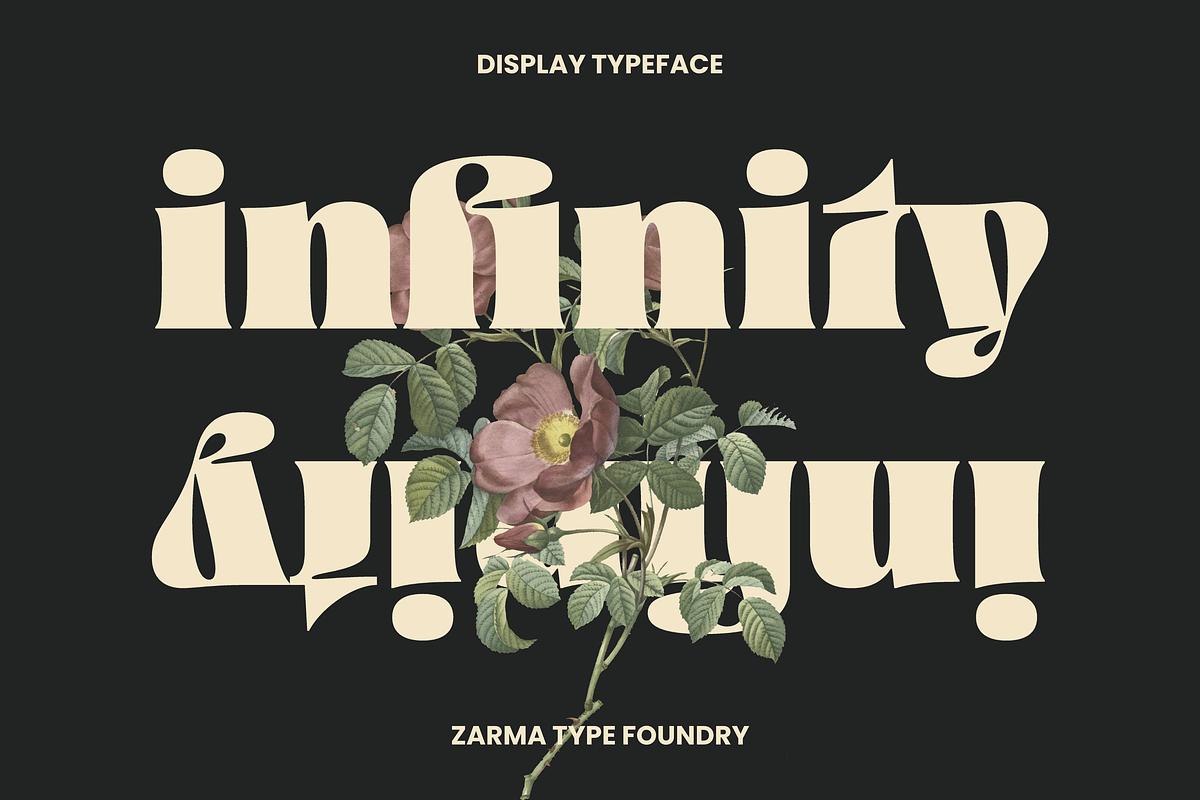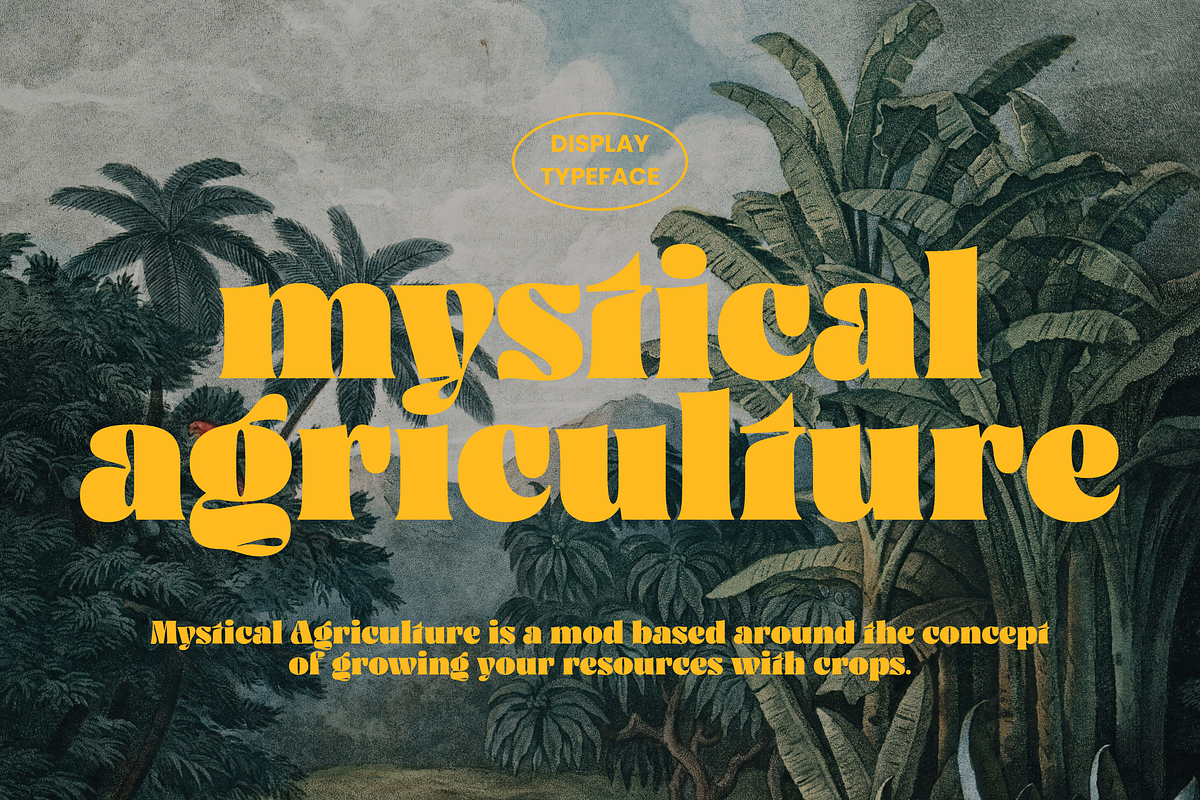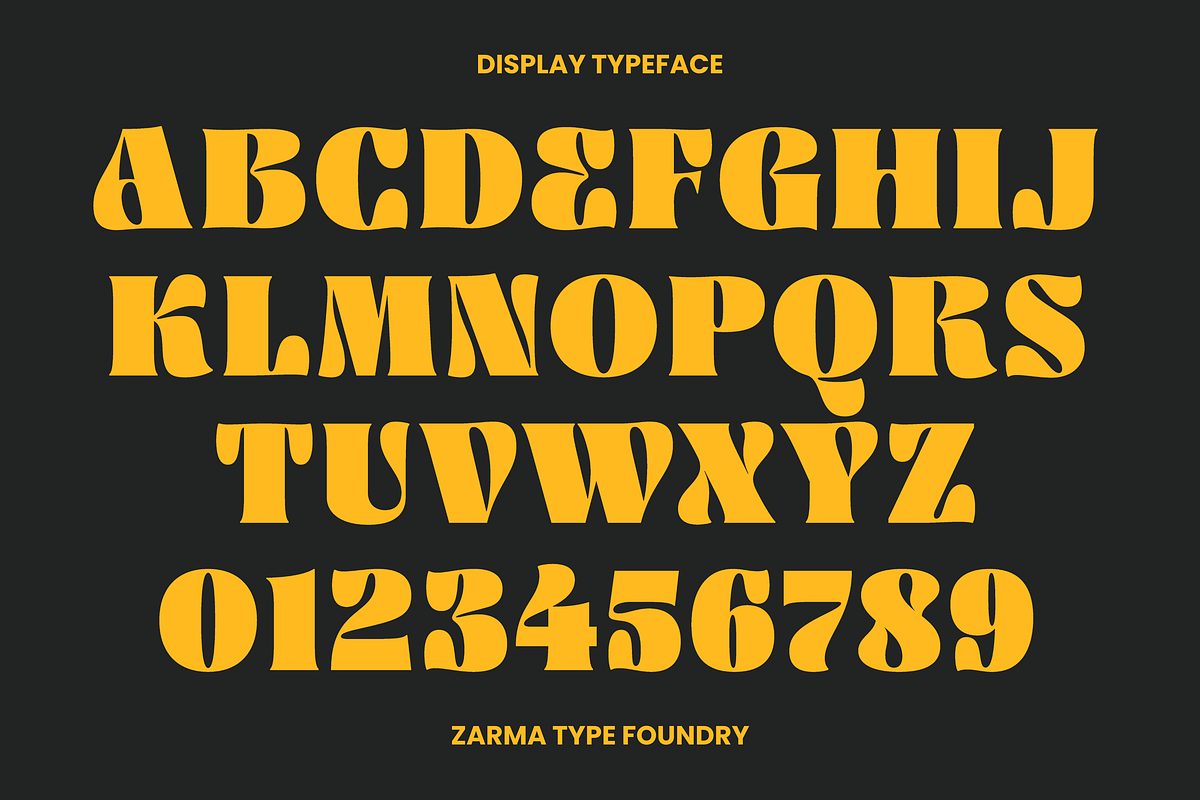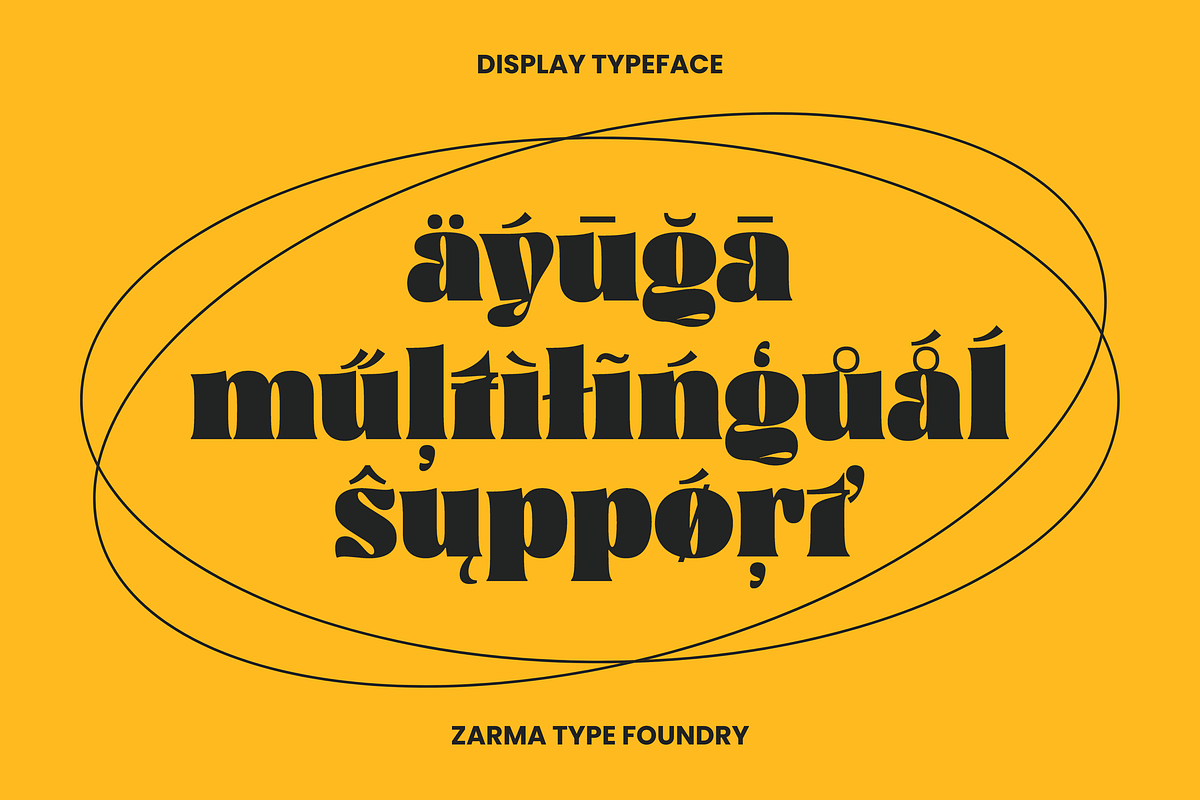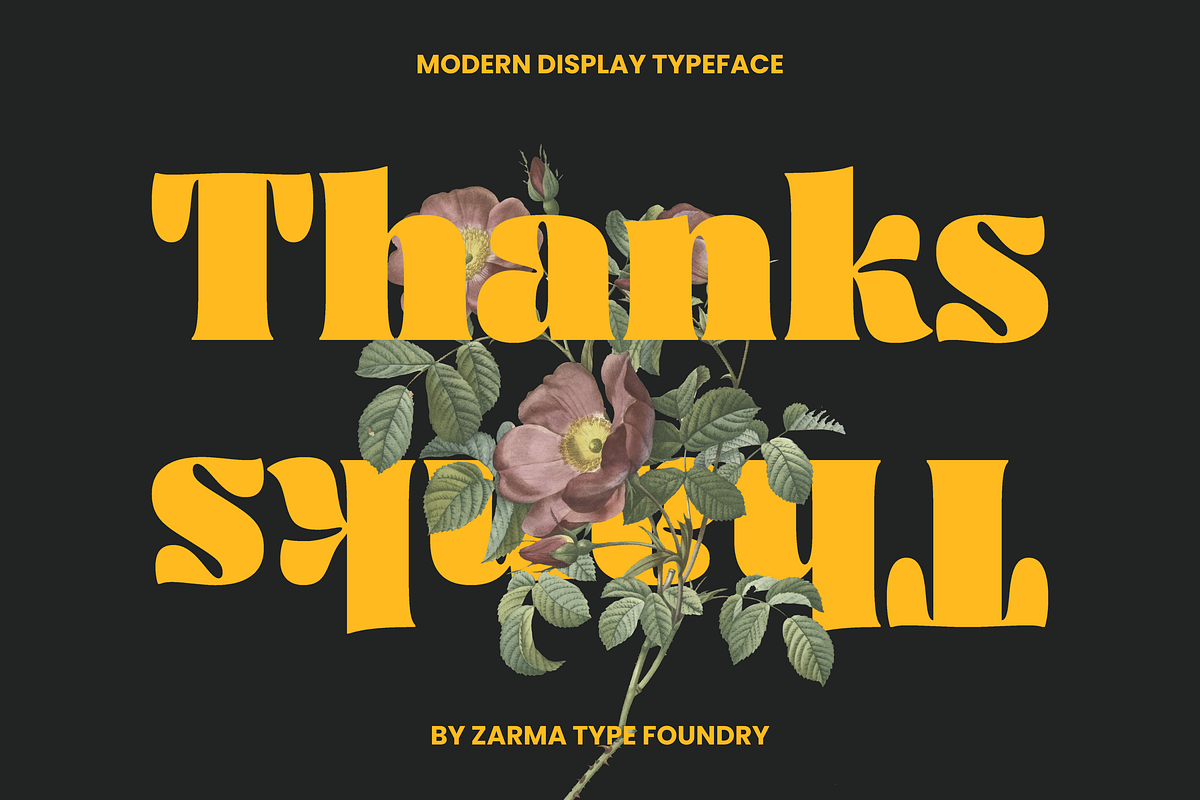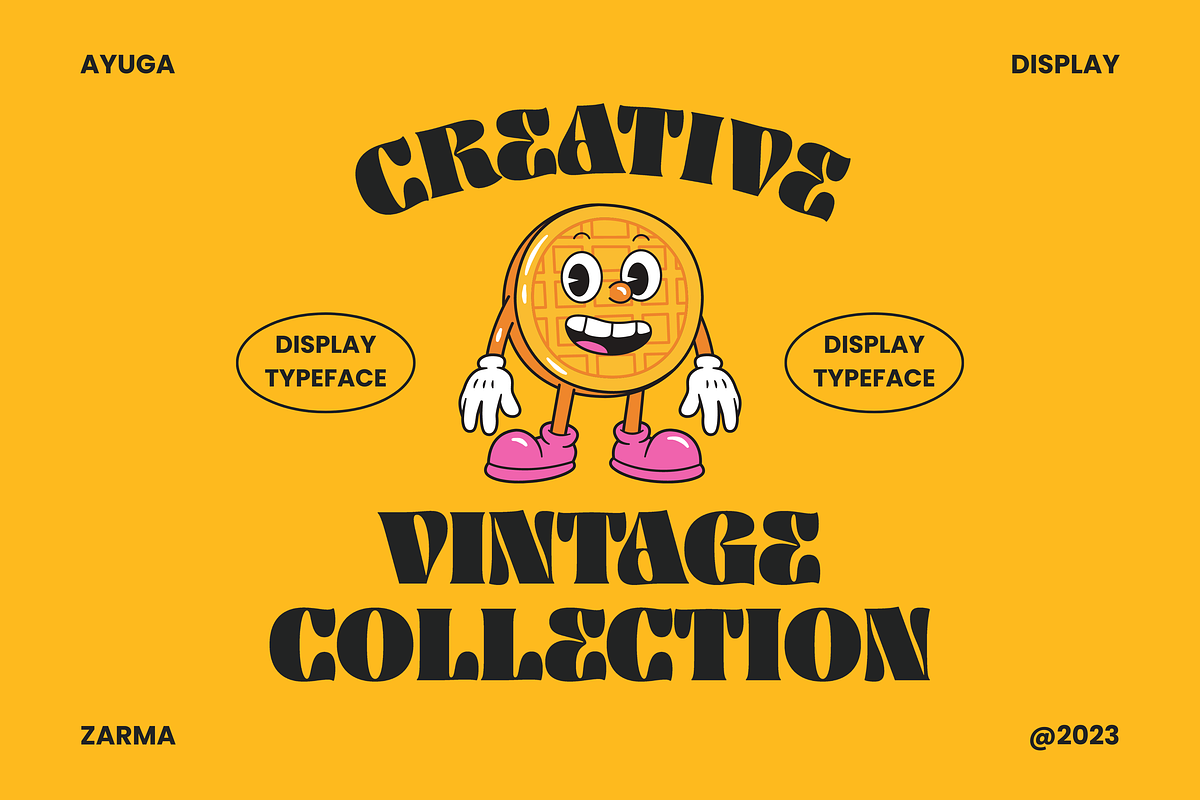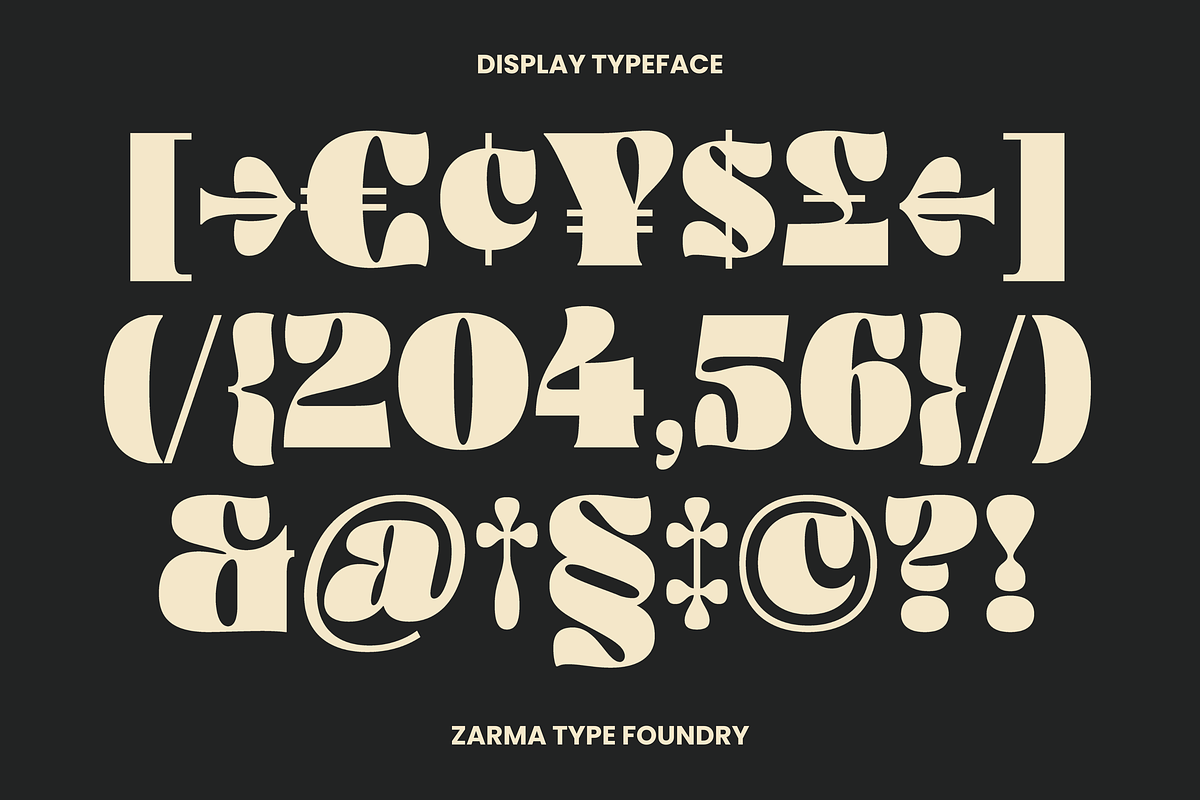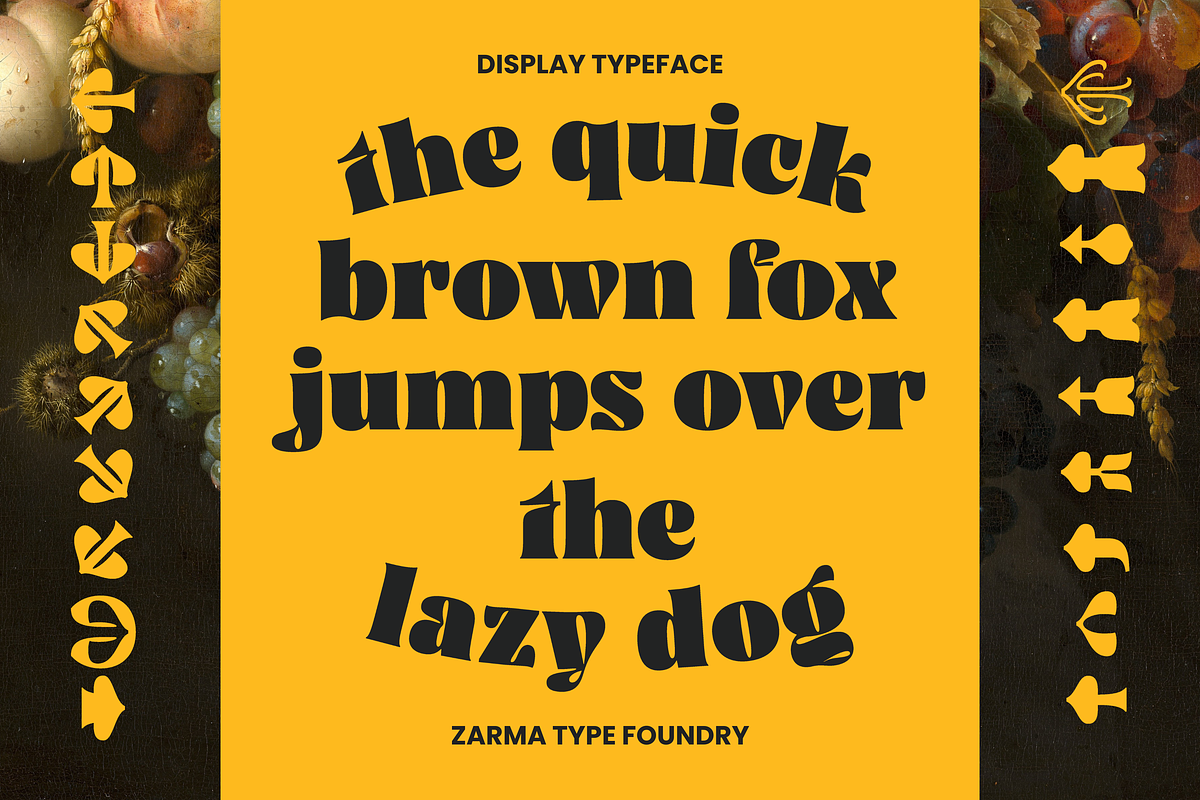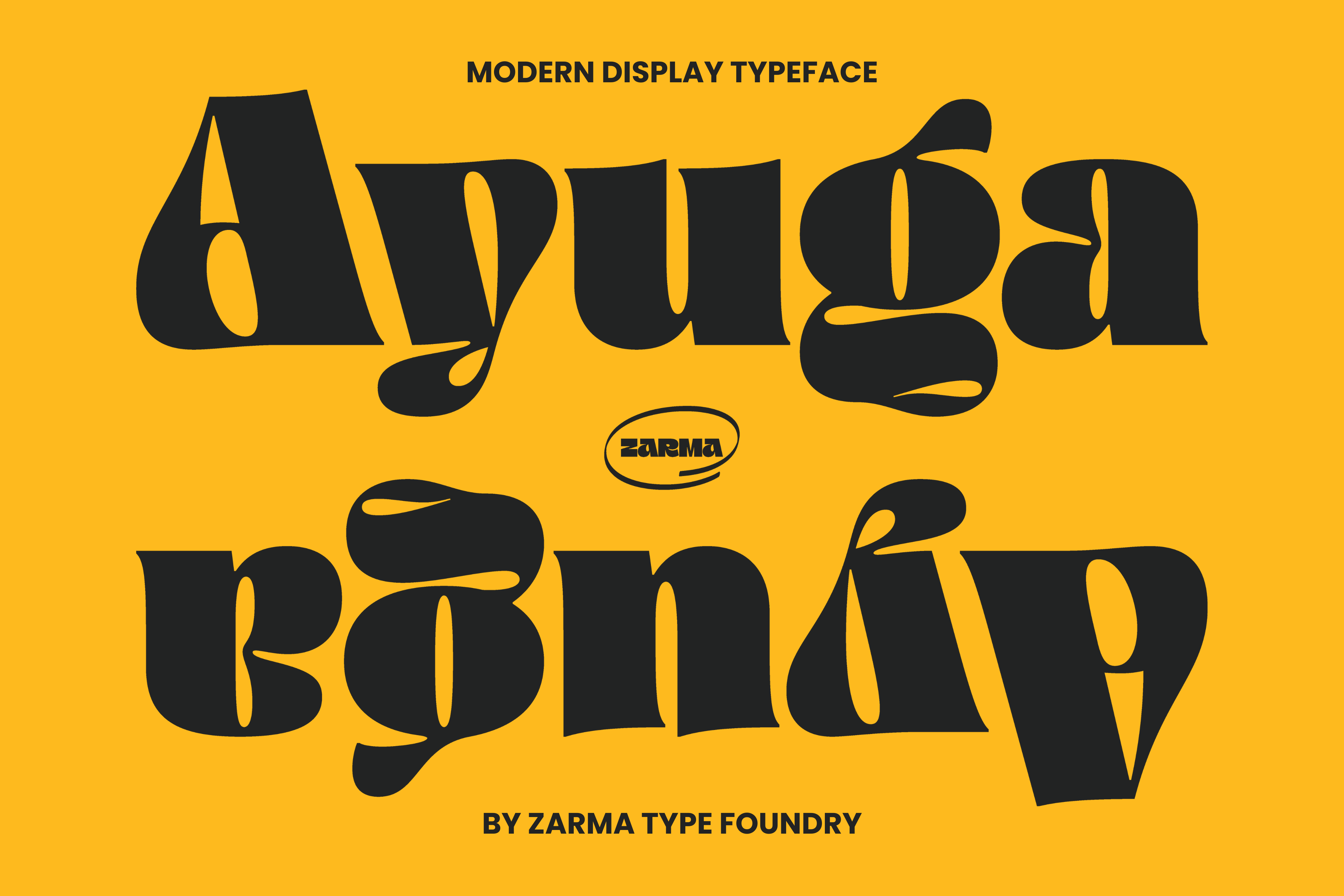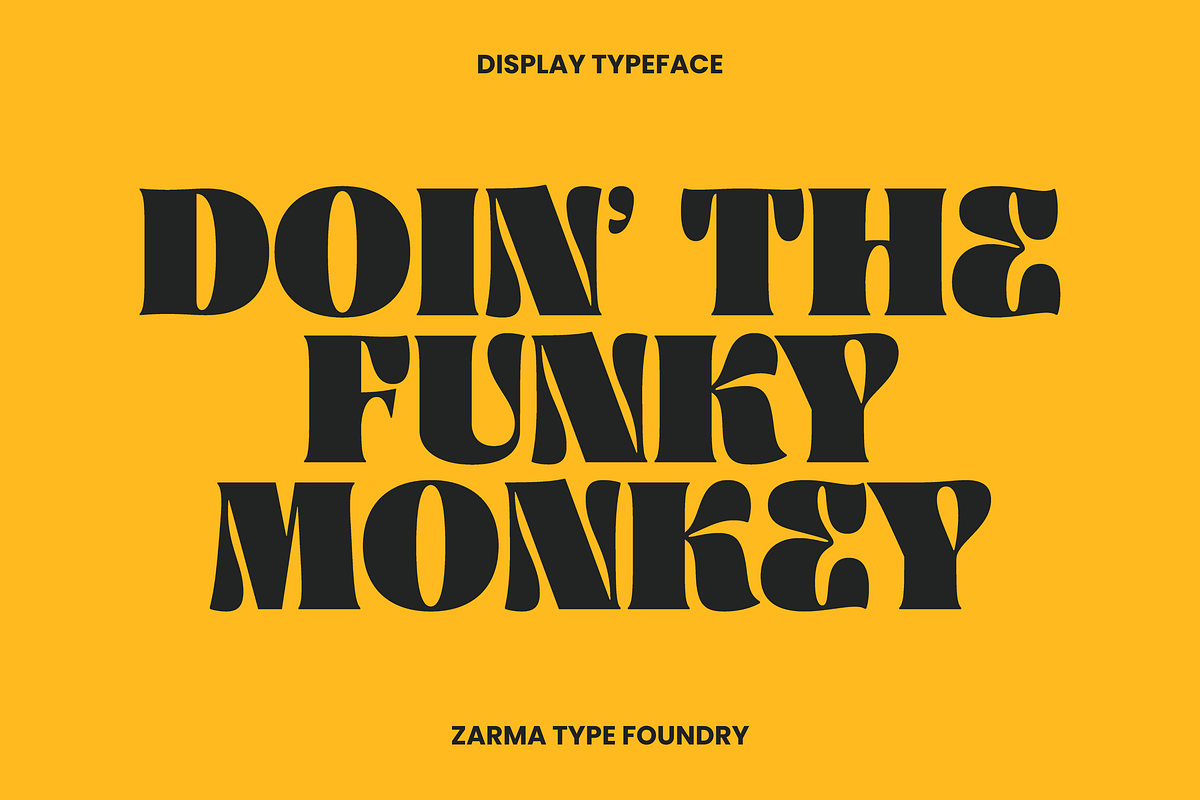
Ayuga - Psychedelic Font
Psychedelic Font Ayuga, a captivating display typeface that perfectly blends retro and psychedelic aesthetics. Ayuga stands out with its bold and thick letterforms, making your design projects truly eye-catching. Ideal for modern branding, unique logo designs, hipster-themed visuals, and captivating posters, Ayuga is the go-to choice for those who crave a touch of vintage and uniqueness in their typography. Upgrade your design game and let Ayuga's bold and groovy retro style speak for your creative vision.
Non English glyphs included: À Á Â Ã Ä Å Ā Ă Ą C Ç Ć Ĉ Ċ Č Ď Đ È É Ê Ë Ē Ĕ Ė Ę Ě Ĝ Ğ Ġ Ģ Ĥ Ħ Ì Í Î Ï Ĩ Ī Ĭ Į İ Ĵ Ķ Ĺ Ļ Ľ Ŀ Ł Ñ Ń Ň Ò Ó Ô Õ Ö Ō Ŏ Ő Ø Ǿ Ŕ Ŗ Ř Ś Ŝ Ş Š Ţ Ť Ț Ŧ Ù Ú Û Ü Ũ Ū Ŭ Ů Ű Ų Ŵ Ẅ Ý Ŷ Ÿ Ź Ż Ž Æ Ŋ Ð IJ Œ Þ à á â ã ä å ā ă ą b c ç ć ĉ ċ č ď đ è é ê ë ē ĕ ė ę ě ĝ ğ ġ ģ ĥ ħ ì í î ï ĩ ī ĭ į ij ĵ ķ ĺ ļ ľ ŀ ł ñ ń ņ ň ʼn ò ó ô õ ö ō ŏ ő ø ǿ ŕ ŗ ř ś ŝ ş š ș ť ț ţ ŧ ù ú û ü ũ ū ŭ ů ű ų ŵ ẅ ẁ ý ÿ ŷ ź ż ž æ ı ŋ ð ß œ þ